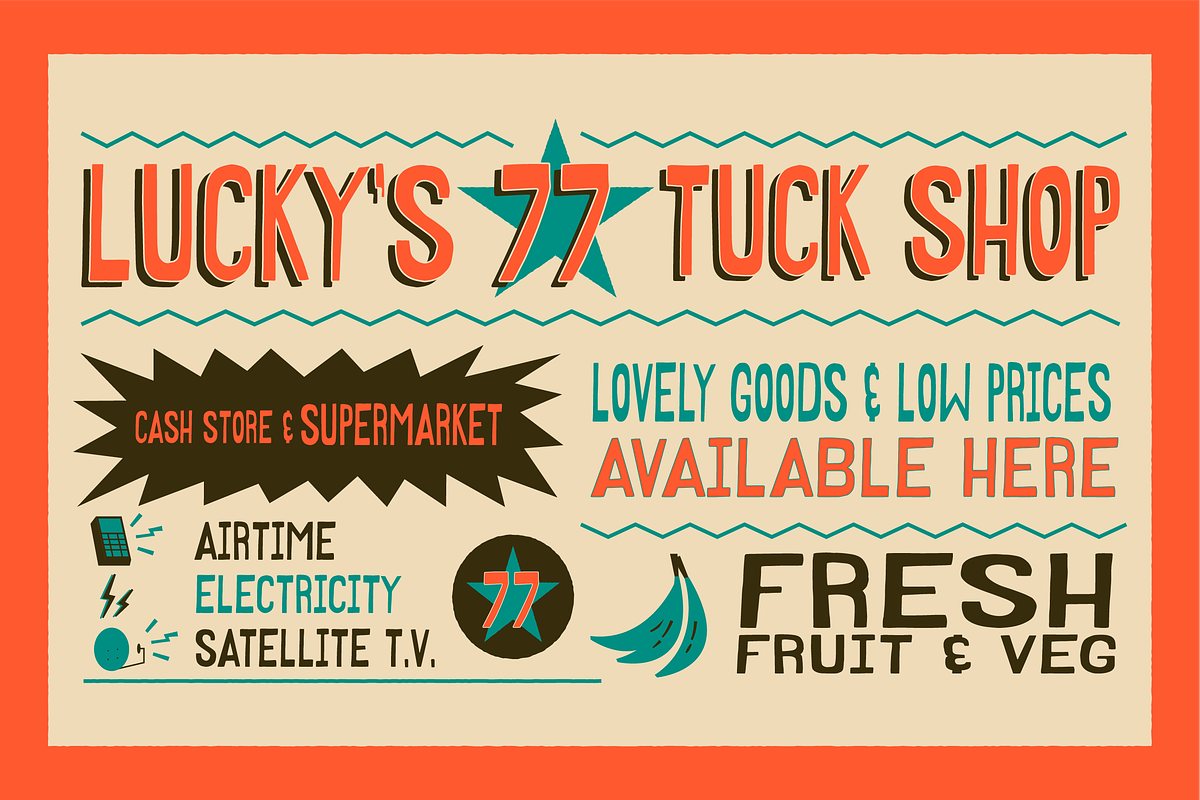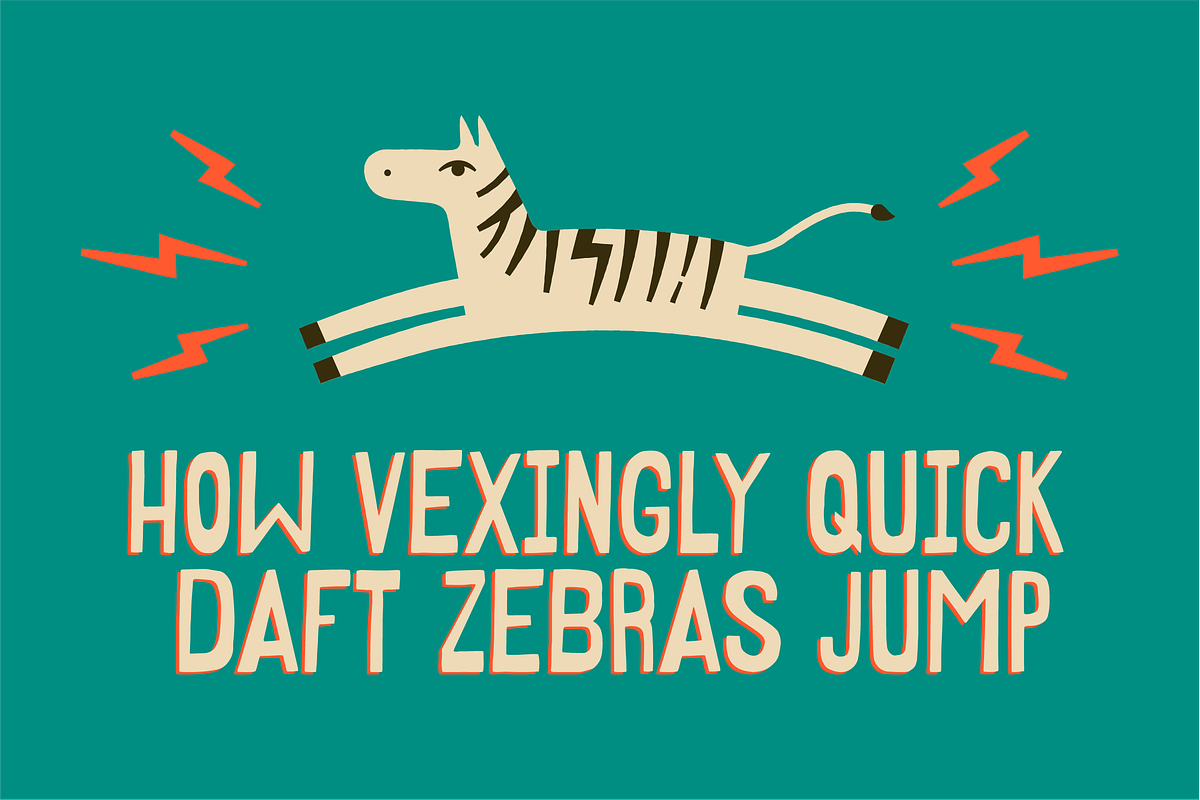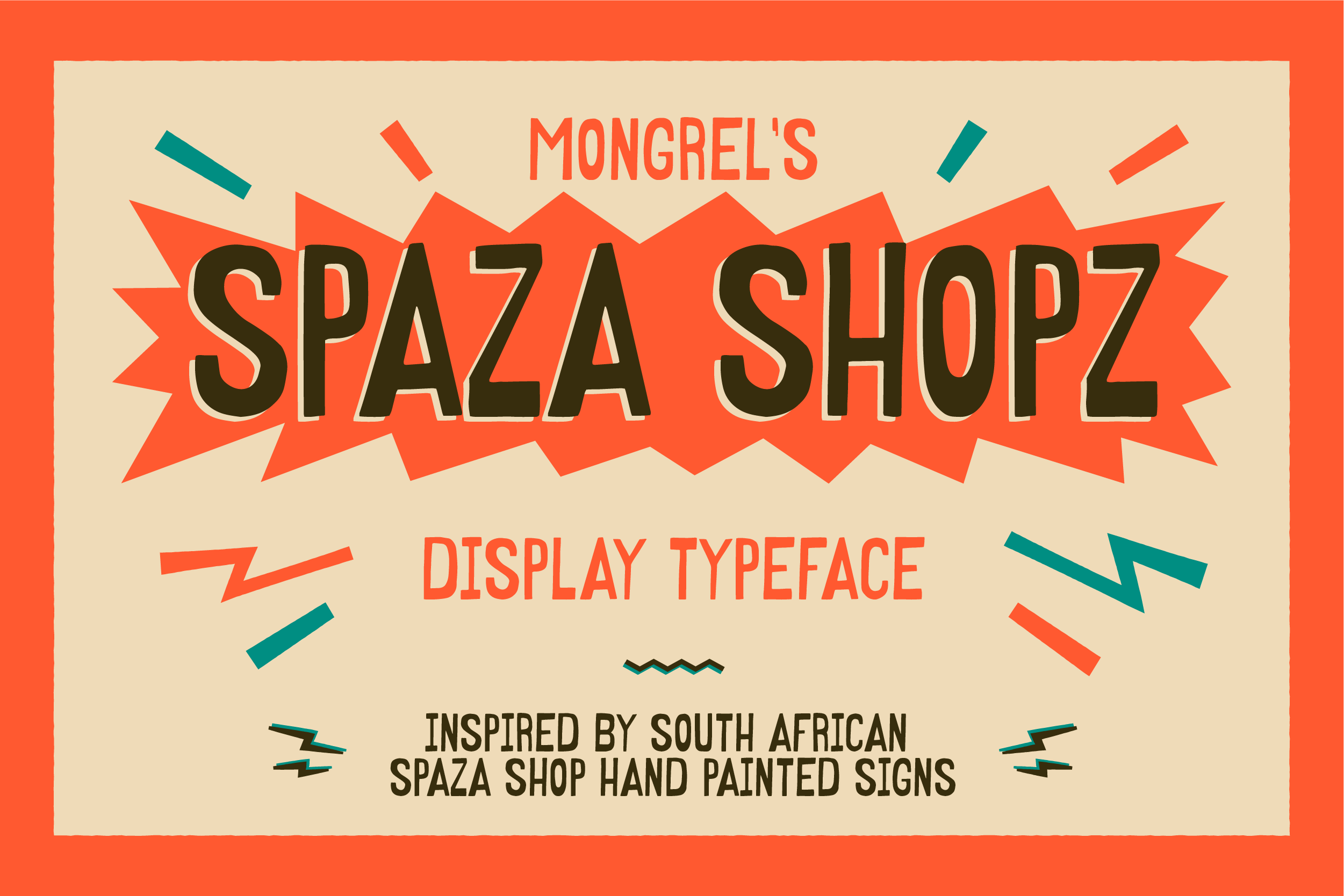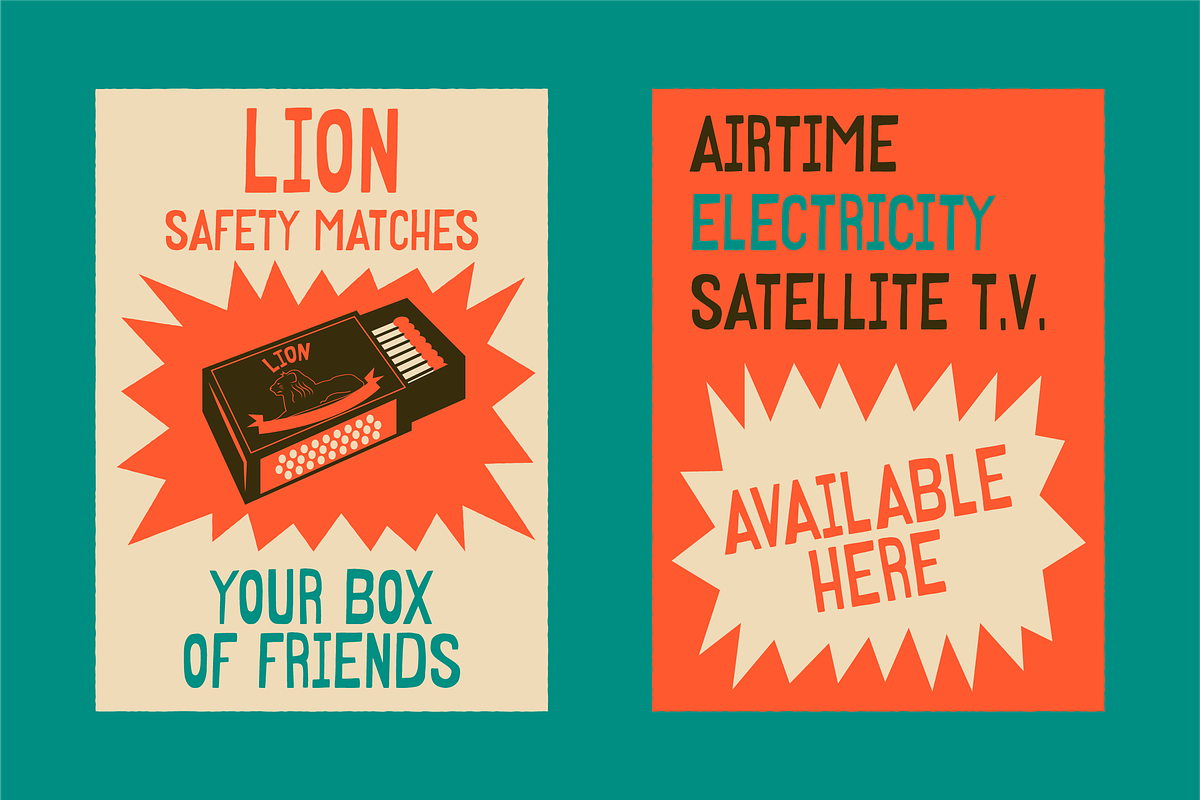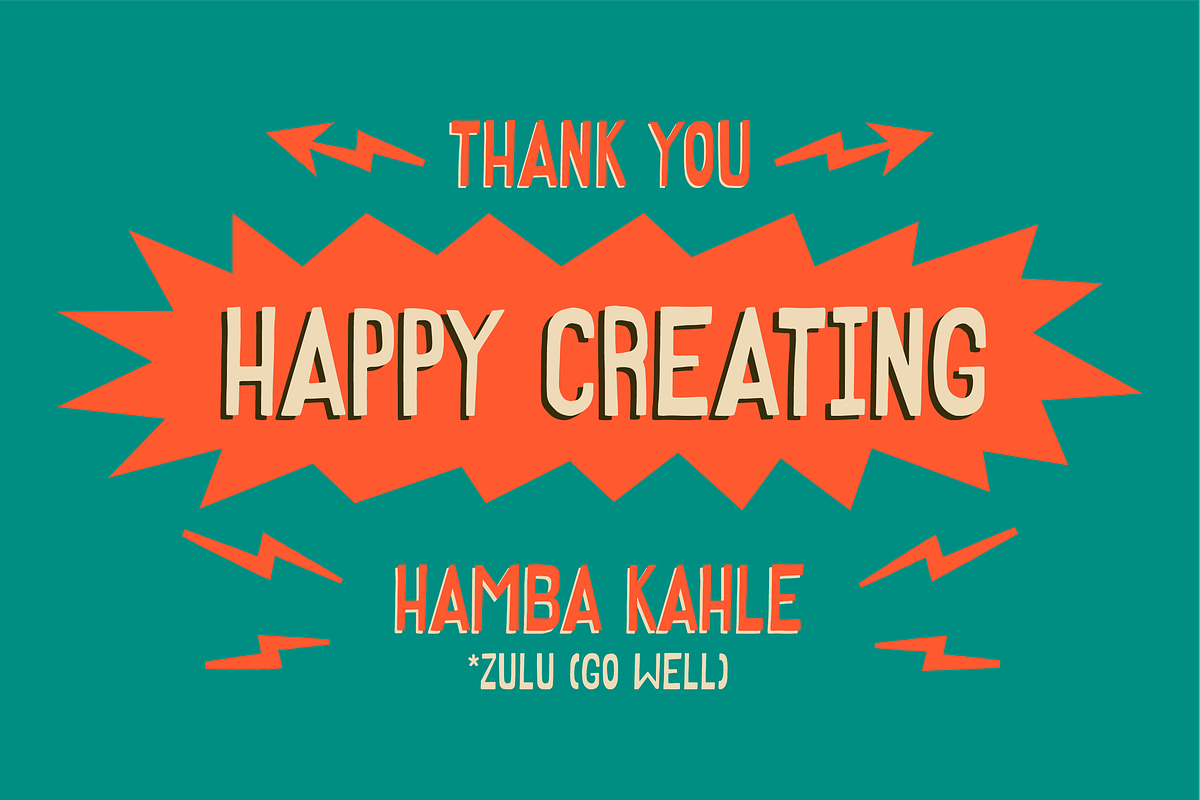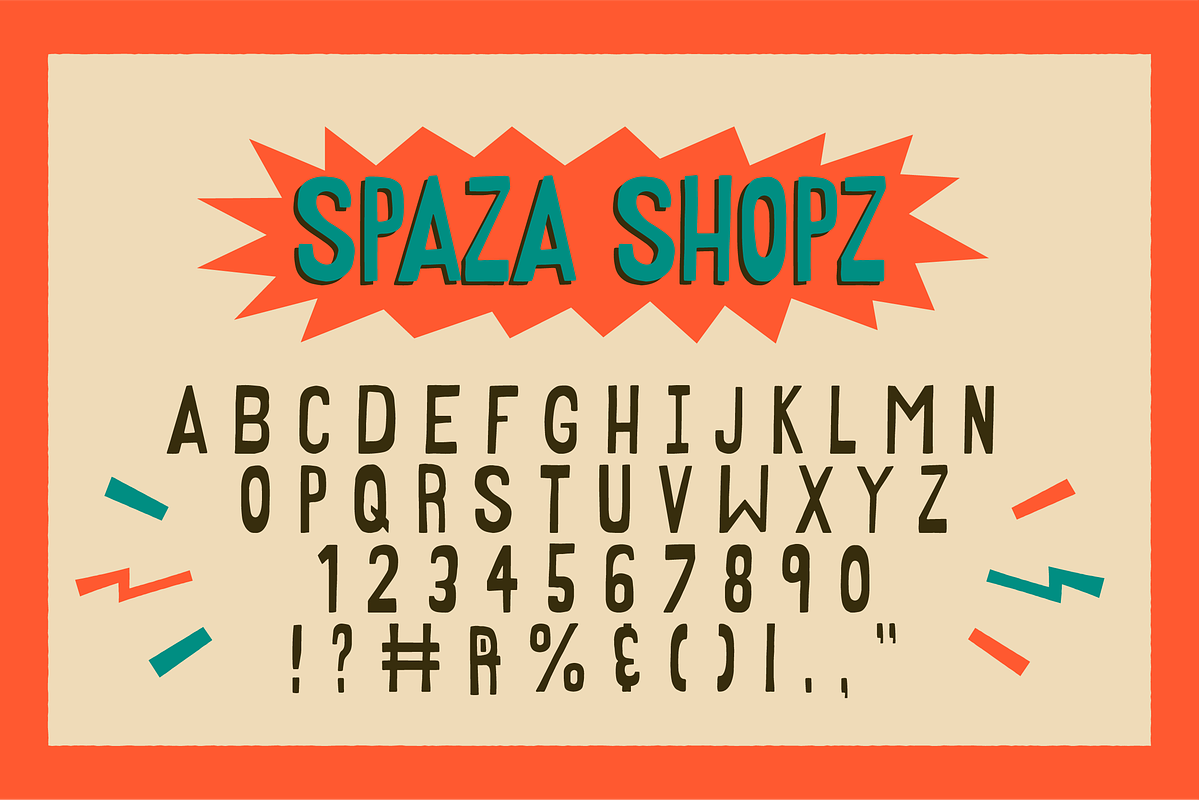
SPAZA SHOPZ - Display font
Say hello to SPAZA SHOPZ, a font inspired by South Africa's wonderful and quirky hand-painted spaza shops (tuck shops) signs!
SPAZA SHOPZ is a quality display font with tons of character. Unconventional squished and wobbly characters mixed with beautiful subtle stroke texturing.
- Letters in all caps
- Numbers 0 - 9
- Most Punctuation
- Most common symbols